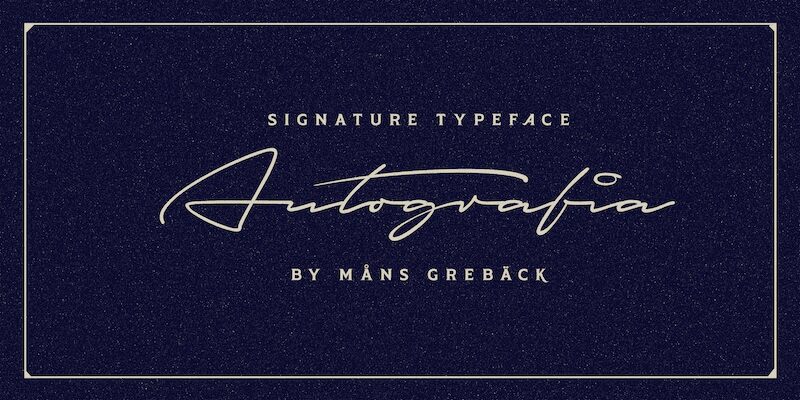
Autografia Medium font is a cool signature typeface designed by Mans Greback.
Use underscore _ anywhere in a word to make an underline.
Example: Sign_ature
Use multiple underscores for different underlines.
Example: Hand_____writing